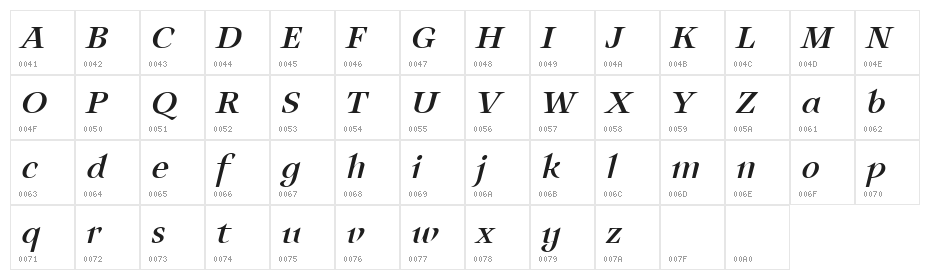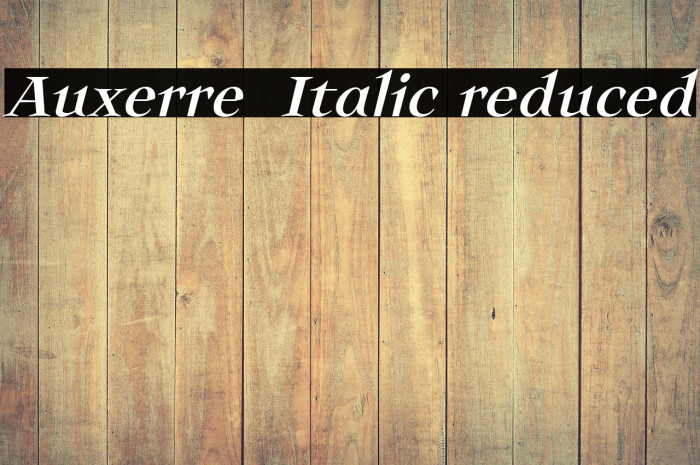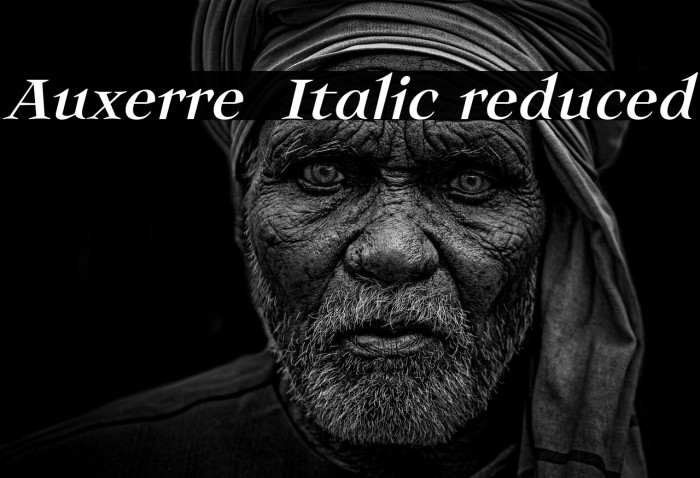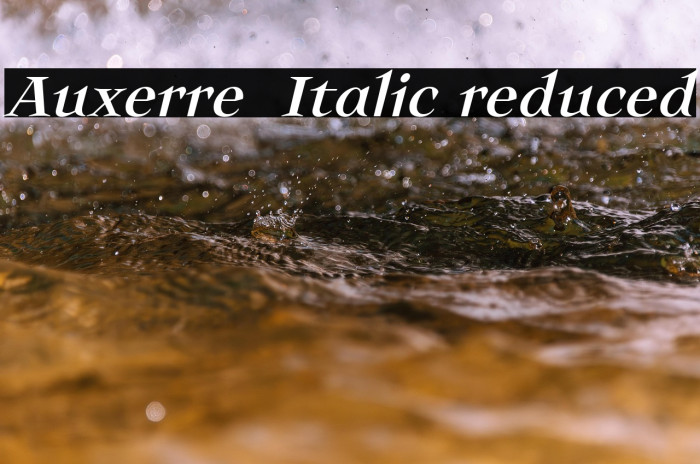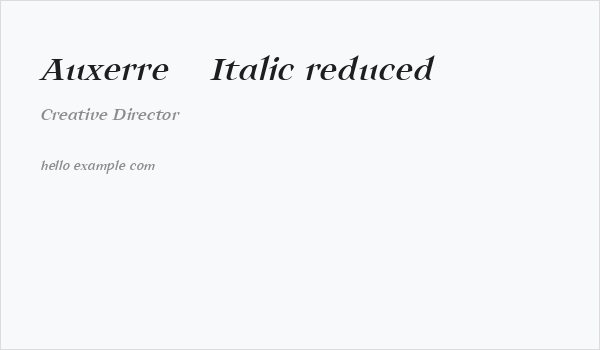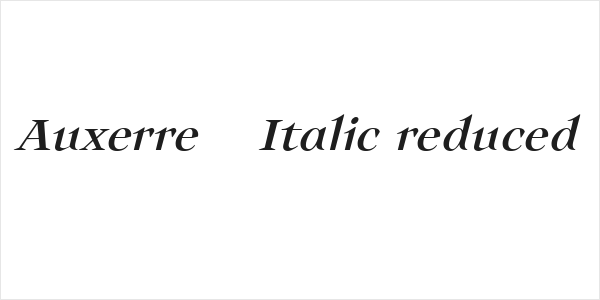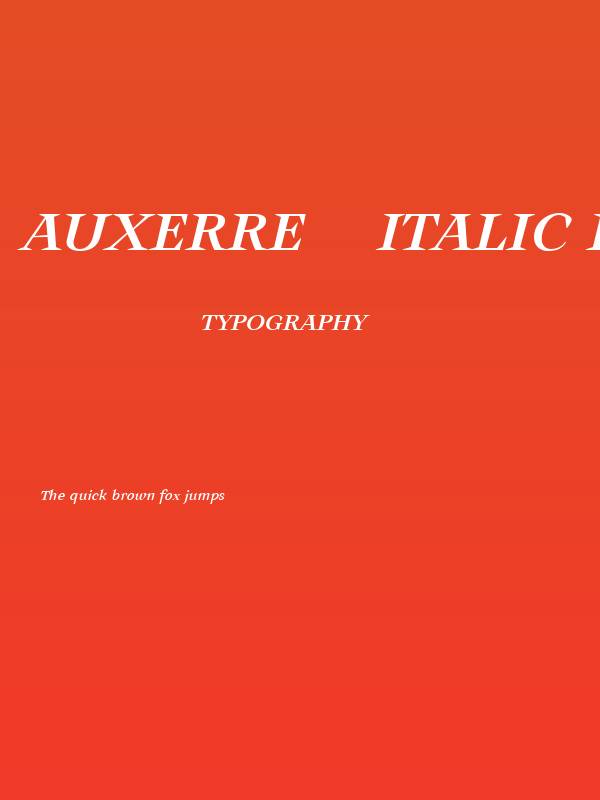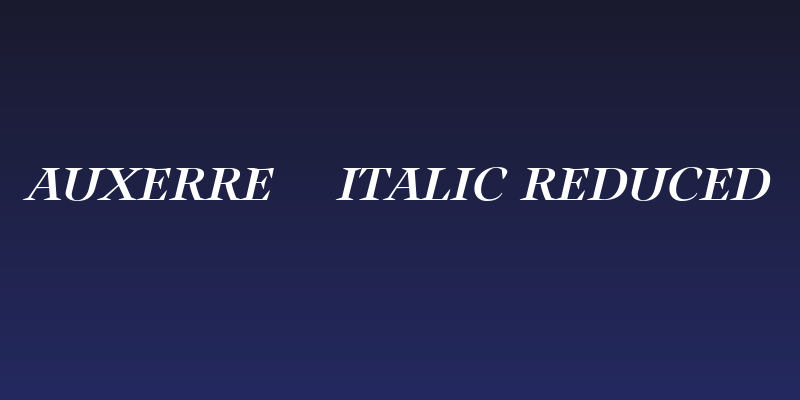
Auxerre 56 Italic reduced Font
Auxerre 56 Italic reduced Description
This font exhibits a classic and elegant italic style, characterized by its smooth, flowing lines and moderate contrast between thick and thin strokes. The serifs are pronounced yet refined, adding a touch of sophistication to the overall appearance. The slant of the letters enhances the dynamic and graceful feel, making it suitable for formal and stylish applications. The uppercase letters maintain a strong presence, while the lowercase letters are more delicate, providing a harmonious balance. The numbers and special characters are designed to complement the alphabet, ensuring consistency across all elements.
| Proposed Projects | Ideal for wedding invitations, luxury branding, editorial design, and elegant signage. |